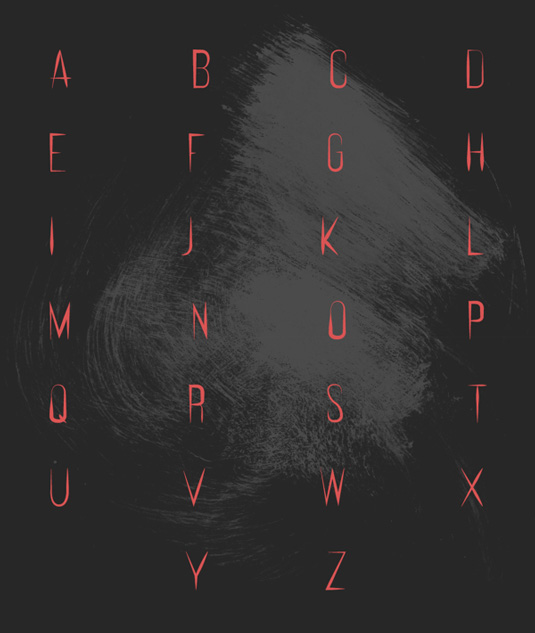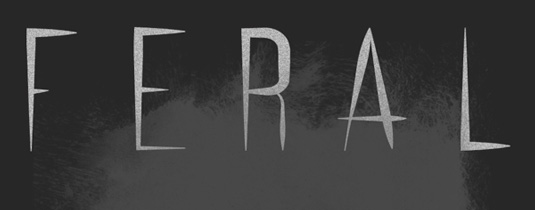
Feral by Marcus Lien Gundersen
Condensed and creepy, today's font of choice is Feral by student Marcus Lien Gundersen (opens in new tab). Inspired by Tim Burton, Gundersen created the typeface on impulse with the intention of putting the "scary into your headings".